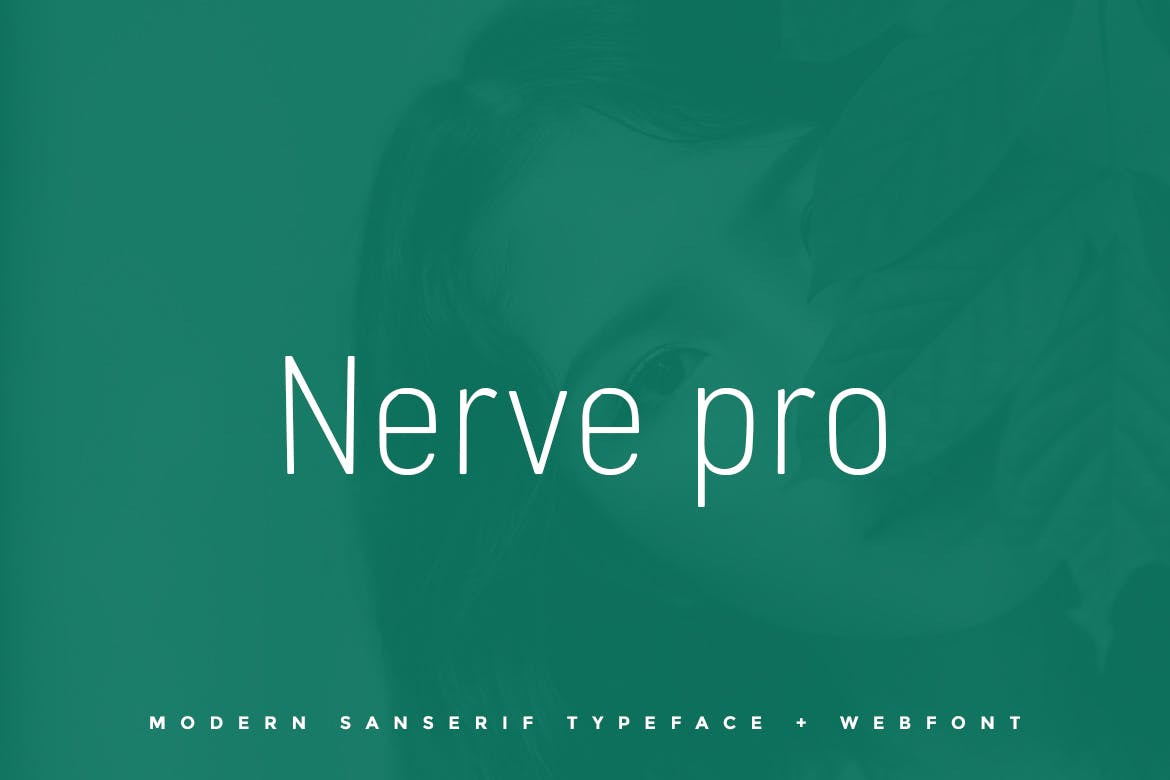
Nerve pro - Typeface + Web Fonts
Nerve Pro Sans Typeface
Nerve Pro is a modern and Minimal Sans Serif typeface with for Minimal typography designs, Nerve Pro can keep the minimalism at its level best and is a perfect choice for, Display, headlines, paragraph, subheading, notes, Big Banners. Classic & Decorative Typography Designs.